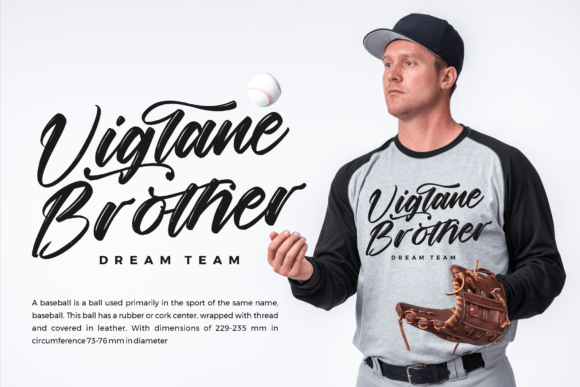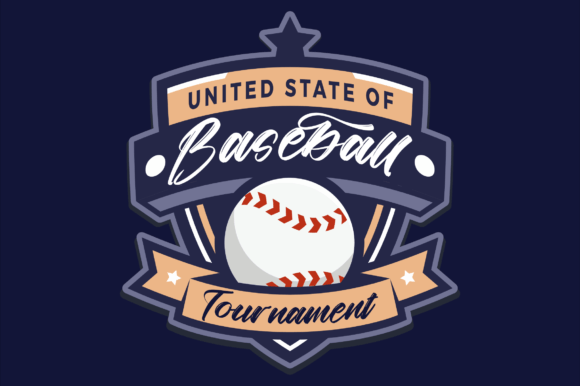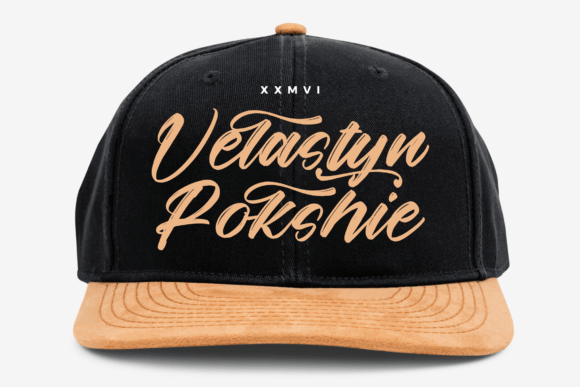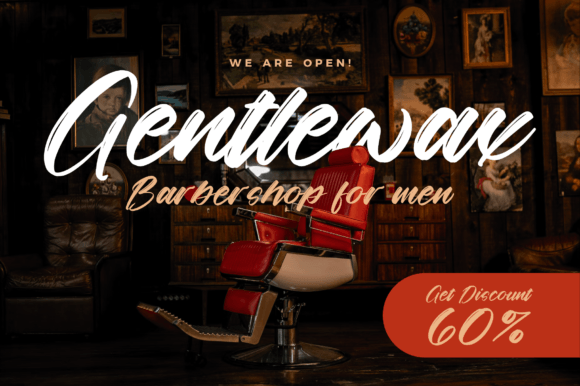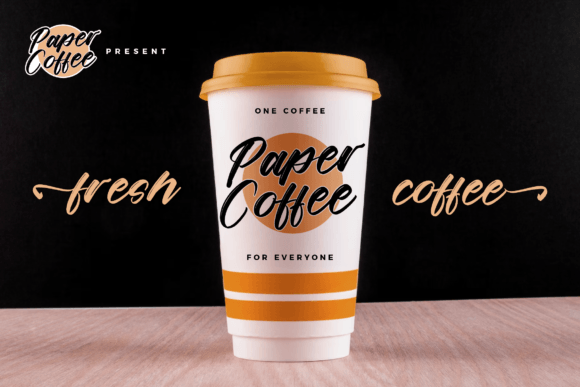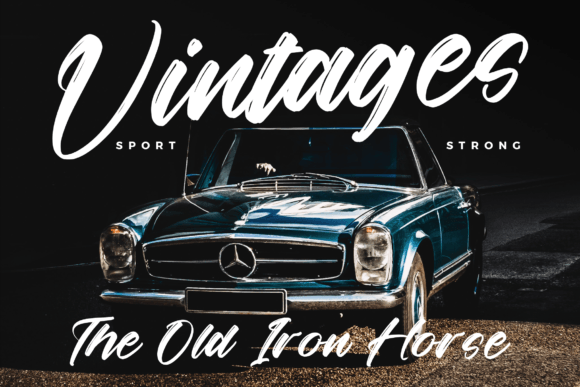
Brighten Up Your Designs with the Bakelline Micigants Font
Have you ever found yourself staring at a blank canvas, searching for that perfect font to bring your creative vision to life? The struggle is real, but what if I told you that there’s a solution that’s as beautiful as it is versatile? Enter the Bakelline Micigants Font, a stunning script font from Perspectype Studio that’s designed to elevate your projects to the next level.
Whether you’re working on logos, branding projects, or anything in between, the Bakelline Micigants Font is the perfect addition to your design toolkit. Its unique rough brush style adds a touch of sophistication and elegance to any project, making it a valuable asset for designers who want to make a lasting impression.
- Unique Characteristics: Bakelline Micigants Font features a unique blend of modern and vintage elements, with intricate details and ornate flourishes, making it suitable for luxury, high-end, and vintage-themed designs.
Bakelline Micigants Font Review
I must say, I was excited to dive into the Bakelline Micigants Font. Upon initial use, I found it to have a unique aesthetic ✨. The font’s playful, handwritten feel is perfect for creative projects and adds a touch of personality to any design. The Bakelline Micigants Font is also highly legible, making it suitable for body text as well as headings.
- The font’s versatility is one of its strongest features. It can be used for a wide range of applications, from branding and advertising to digital and print media.
- The Bakelline Micigants Font also offers a range of customization options, allowing designers to tailor the font to their specific needs.
However, there are a few limitations to consider ⚠️. One of the main drawbacks is that the font can be quite bold, which may not be suitable for all designs. Additionally, the font’s cursive feel can make it difficult to read at small font sizes.
Overall, I would give the Bakelline Micigants Font 4 out of 5 stars. While it has some limitations, its unique aesthetic and versatility make it a valuable addition to any designer’s toolkit. With a little creativity and experimentation, I’m confident that designers can get the most out of this font.
Tips for Getting the Most Out of Bakelline Micigants Font
To get the most out of Bakelline Micigants font, consider the following tips:
- Use it for titles and headings to add a touch of elegance.
- Pair it with other fonts to create a unique and eye-catching design.
Bakelline Micigants font is commonly used in:
- Artistic and creative projects.